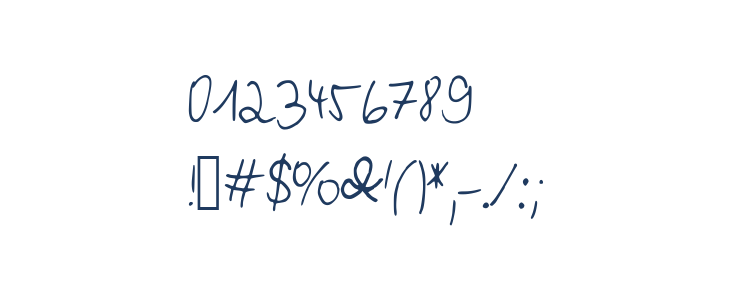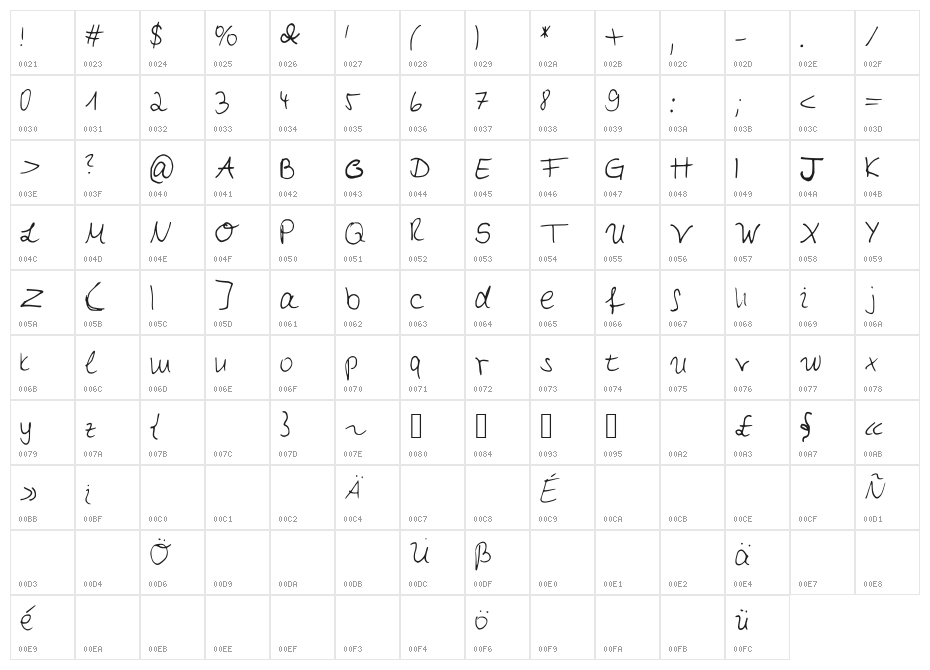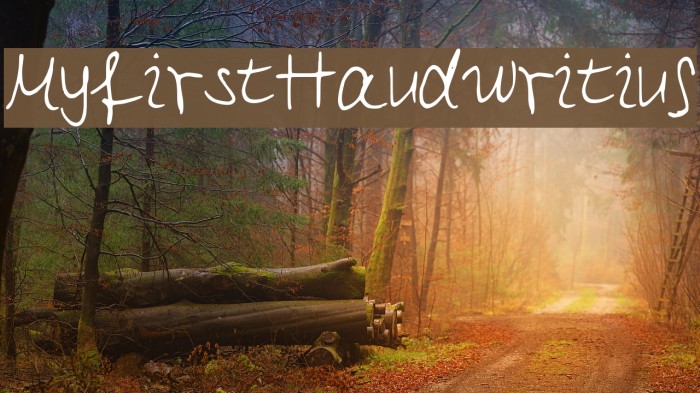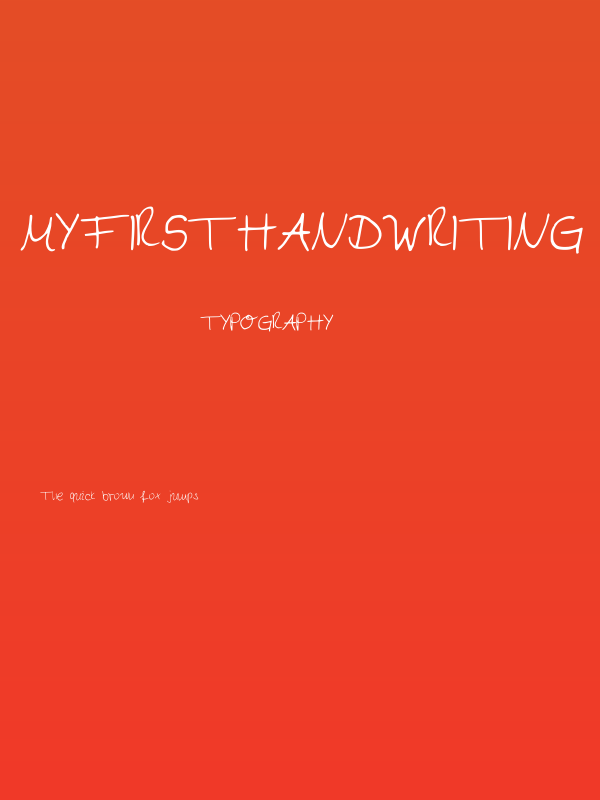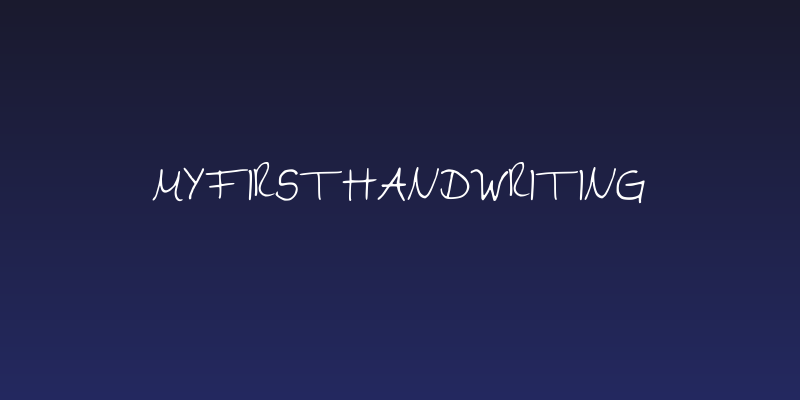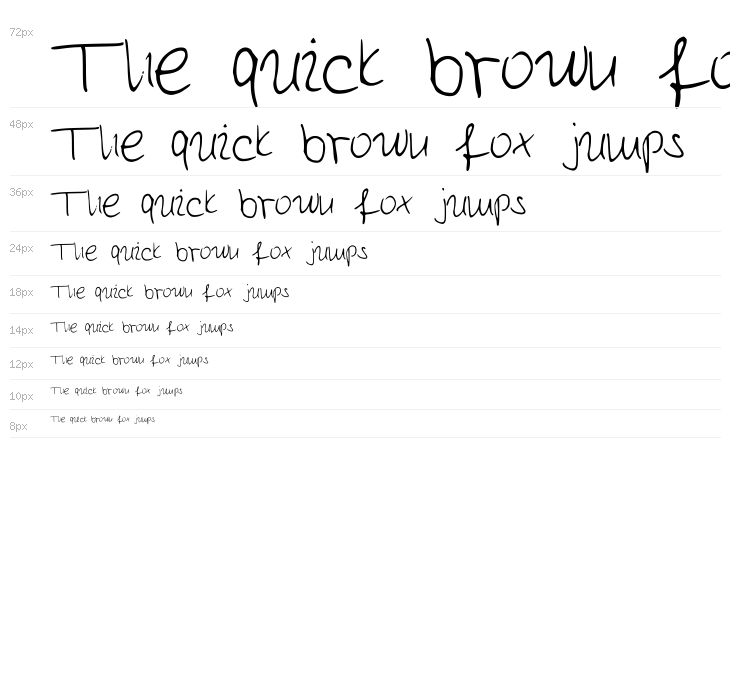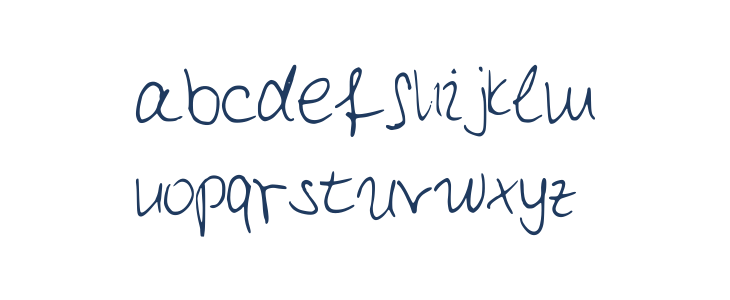
MyfirstHandwriting Font
MyfirstHandwriting Description
This font exhibits a casual, handwritten style with a playful and informal appearance. The letters are slightly slanted, giving it a dynamic and lively feel. The strokes vary in thickness, adding a sense of movement and personality. The uppercase letters are bold and prominent, while the lowercase letters maintain a consistent flow, enhancing readability. Numbers and special characters are crafted with the same playful touch, making them suitable for creative projects. The overall design is approachable and friendly, perfect for conveying a personal touch.
| Overall Style | Casual |
| Use Case | Logos, Headlines, Informal Text |
| Proposed Projects | Ideal for greeting cards, personal notes, informal invitations, and creative branding projects. |